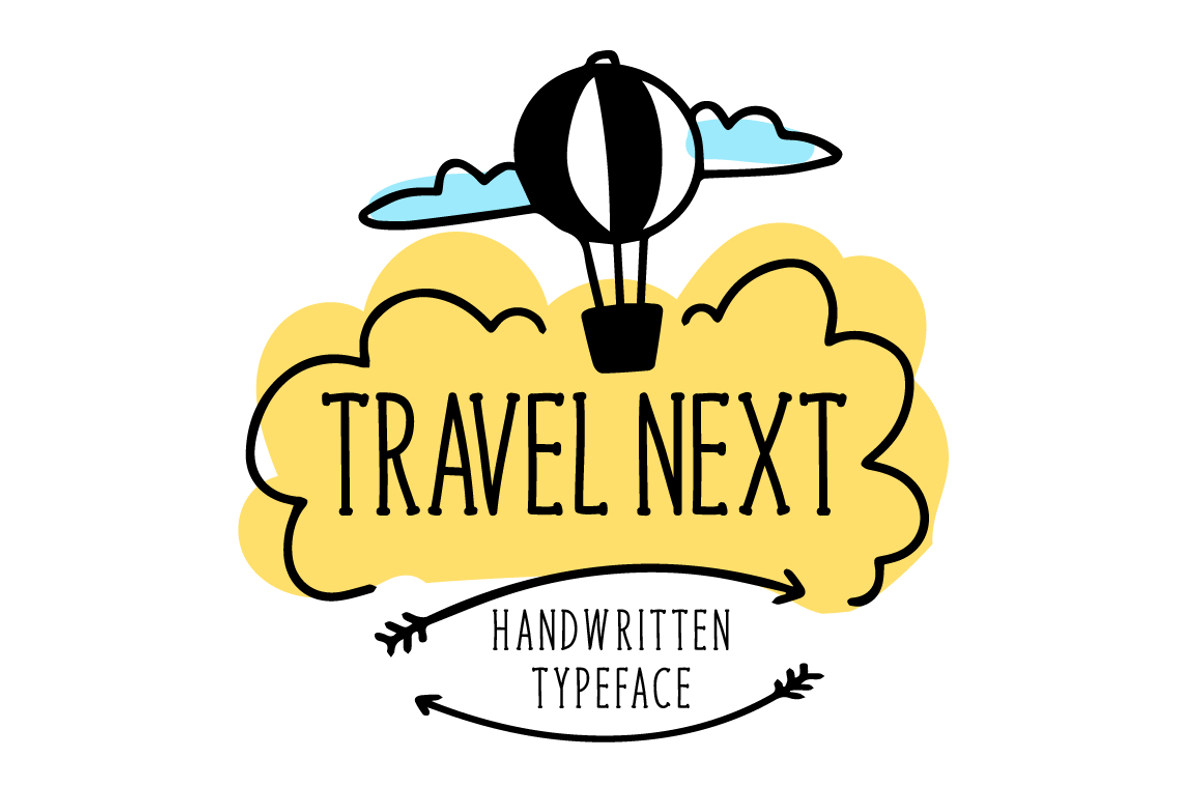
Travel Next Typeface Free Download
The Travel Next Typeface Free Download is a bold, modern font that captures the essence of adventure and exploration. With its clean lines and unique structure, this typeface is perfect for travel blogs, websites, advertisements, and more. Its versatile design works beautifully for both digital and print projects, making it an ideal choice for those looking to create a striking visual impression.
Whether you’re designing promotional materials for a travel agency, creating eye-catching headlines, or crafting an engaging social media post, the Travel Next Typeface Free Download offers a fresh, stylish approach. The font’s bold design ensures readability while giving your content a unique personality.
The Travel Next Typeface stands out with its modern aesthetic and versatility, making it an excellent choice for any design that requires an adventurous feel. It’s ideal for everything from branding to editorial design, and its clean, crisp lines provide a professional touch to any project.